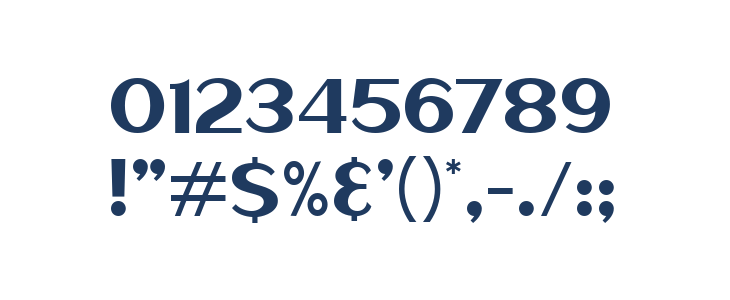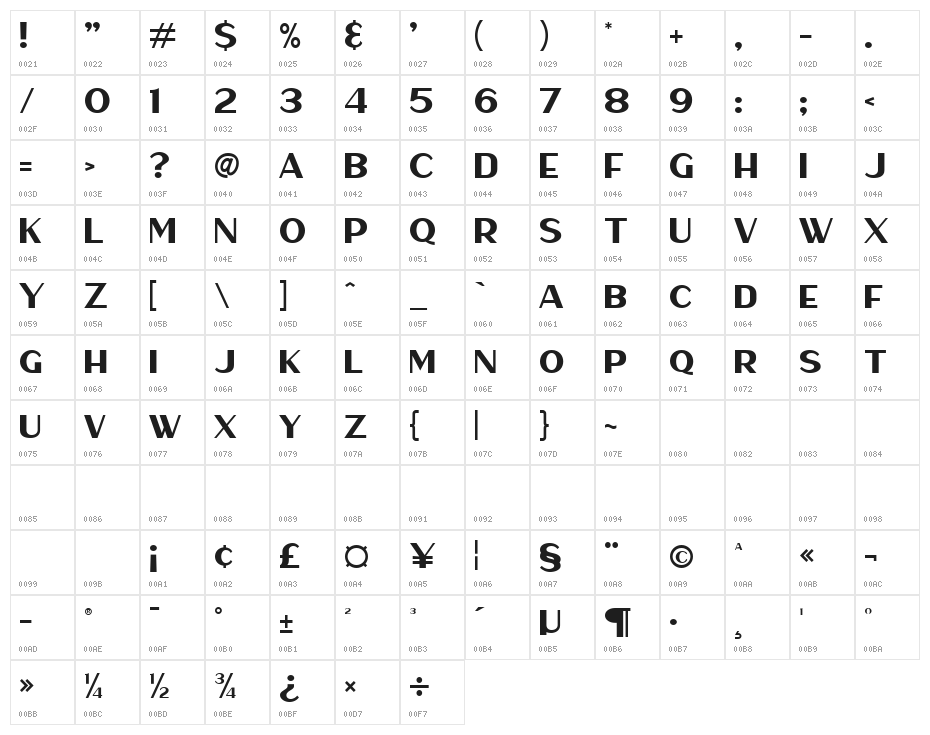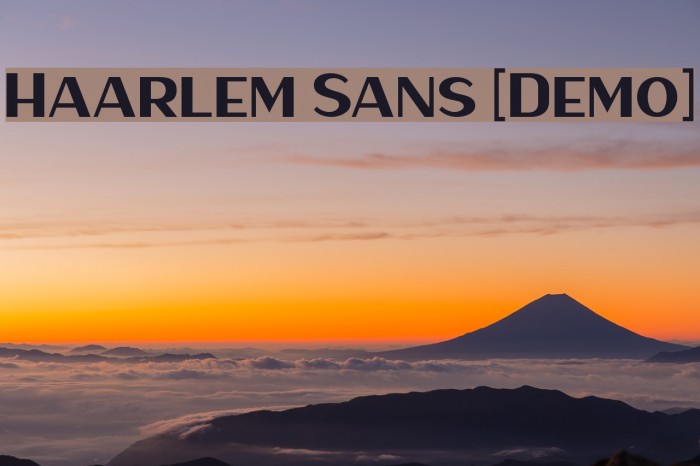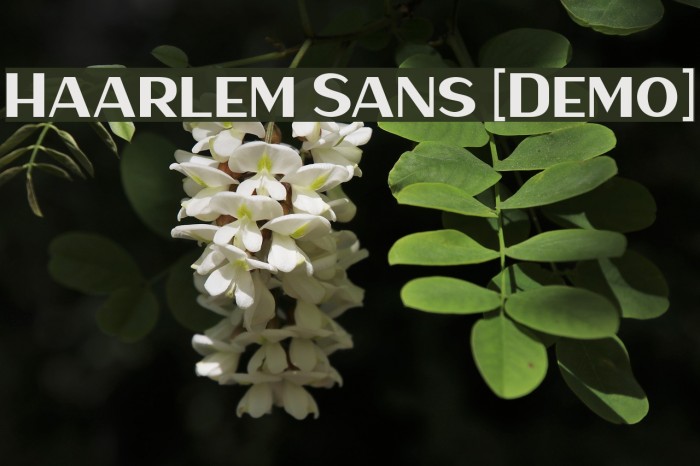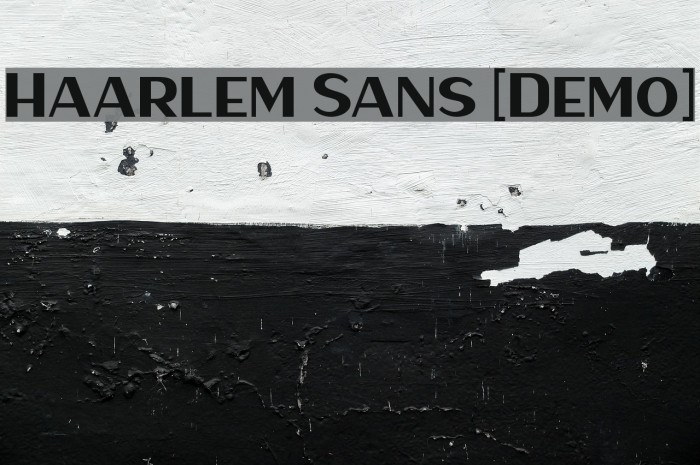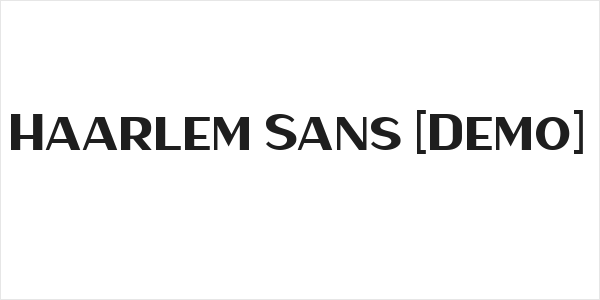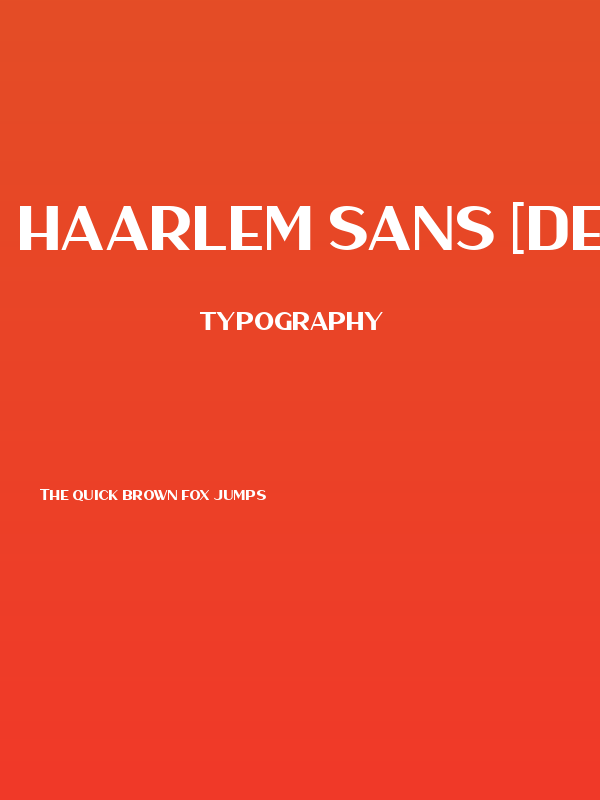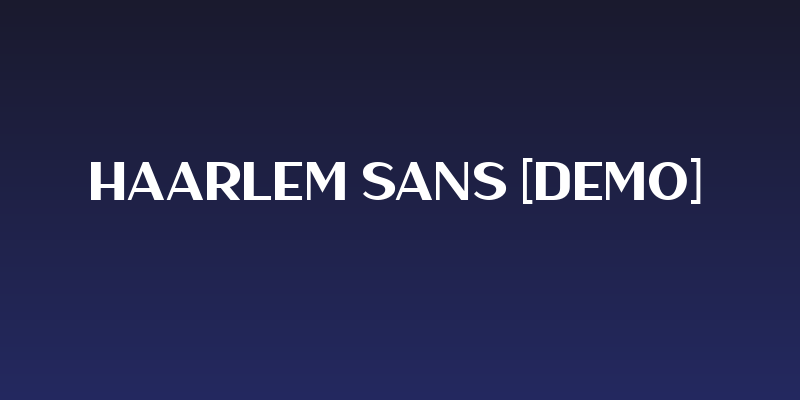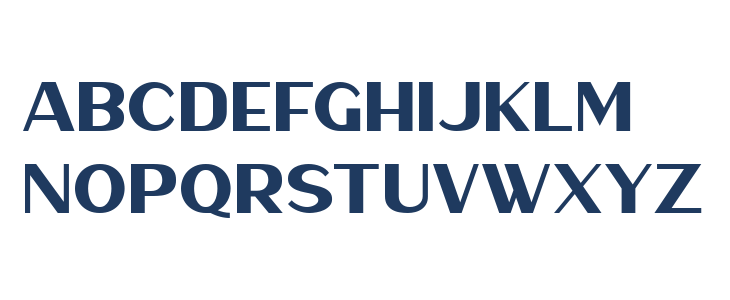
Haarlem Sans [Demo] Font
Haarlem Sans [Demo] Description
This font features a bold and modern sans-serif style, characterized by clean lines and a strong presence. The uppercase letters are uniform in height, providing a cohesive and structured appearance. The lowercase letters maintain a similar weight, ensuring readability and balance. Numbers are clear and distinct, making them suitable for various applications. Special characters are well-integrated, maintaining the overall aesthetic of the font. The design is versatile, making it suitable for both digital and print media.
| Use Case | Headlines, Logos, Advertising |
| Proposed Projects | Ideal for branding, advertising, headlines, and digital media projects. |